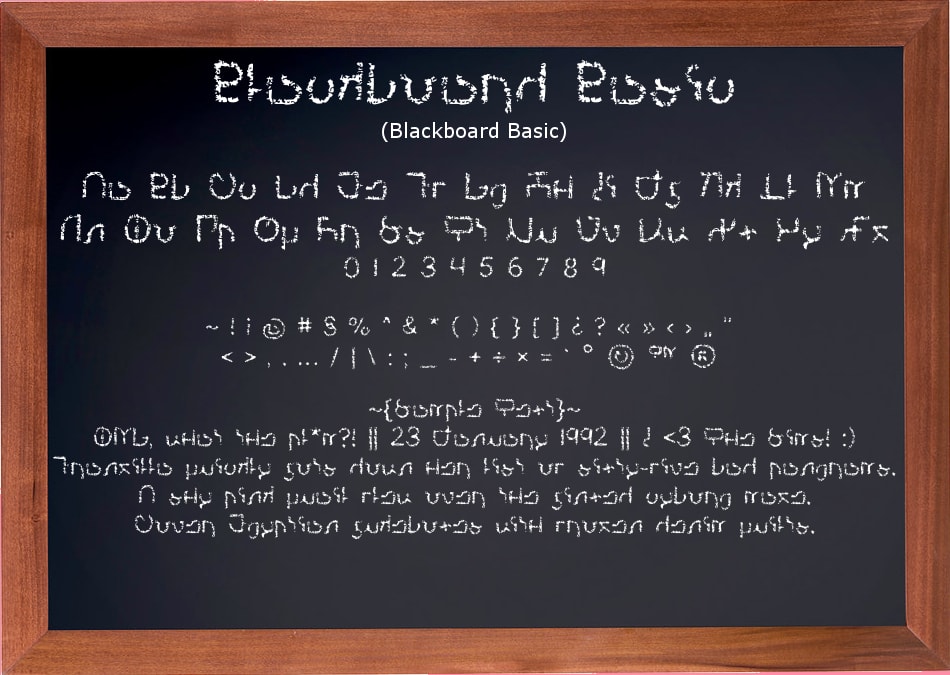
Simlish Handwriting Fonts - Part 1
In order, we have:
Blackboard Basic - A tidy font to simulate chalk or crayon. This is a counterpart to my more childish font, Simdergarten.
Bobblehead (+ Bold) - A cute, very top-heavy font
Hand Cramp - A sharp font with few curves that seems like it would likely result in something akin to carpal tunnel.
Just Sign Here - A left-leaning script font for fun, barely legible signatures
LemonBerri(+Bold, Clear) - A fun bouncy font inspired by my friend's handwriting and Chocolate Covered Raindrops by ByTheButterfly
Let Lazy Dogs Lie - A very lazy font for the Sim who barely has the energy to move a pen. This font is tiny!
Long Awaited - A font with very streeeetchy lowercase letters inspired by PW Stretched by Peax Webdesign
Monkeybars - A fun font with adorned with exaggerated serifs
Note to Self - A font for quick little sticky note messages
Old Book Smell - A rushed script that seems to be running out of ink!
Petal to the Metal - A delicate font full of soft curves and dainty petal-like additions. This is the handwriting of someone with far too much time.
Tyro Tag - A font mimicking the handwriting (spraycanwriting?) of a budding, young graffiti artist
The ~{Sample Text}~ at the bottom of the preview pics reads:
OMG, what the pl*m?! || 23 January 1992 || I <3 The Sims!
Franzilla quickly jots down her list of sixty-five bad pangrams.
A shy pink quail flew over the jinxed cyborg maze.
Cover Egyptian jukeboxes with frozen denim quilts.
These are but plain, simple fonts.